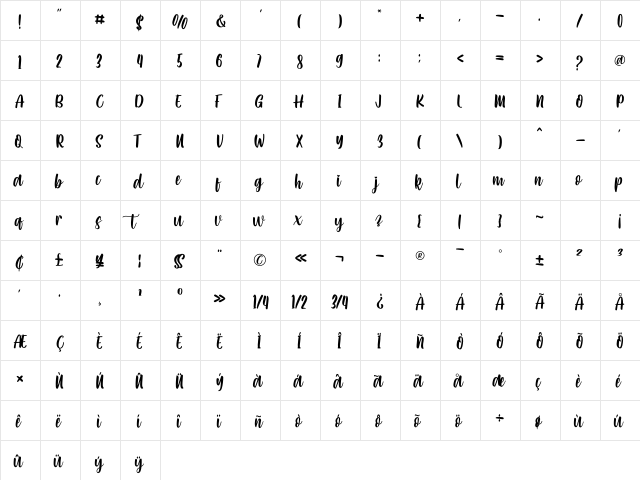
love mom Regular
Design Context for love mom Typeface
love mom is a composed and adaptable typeface that performs quietly and consistently across a wide range of design contexts.